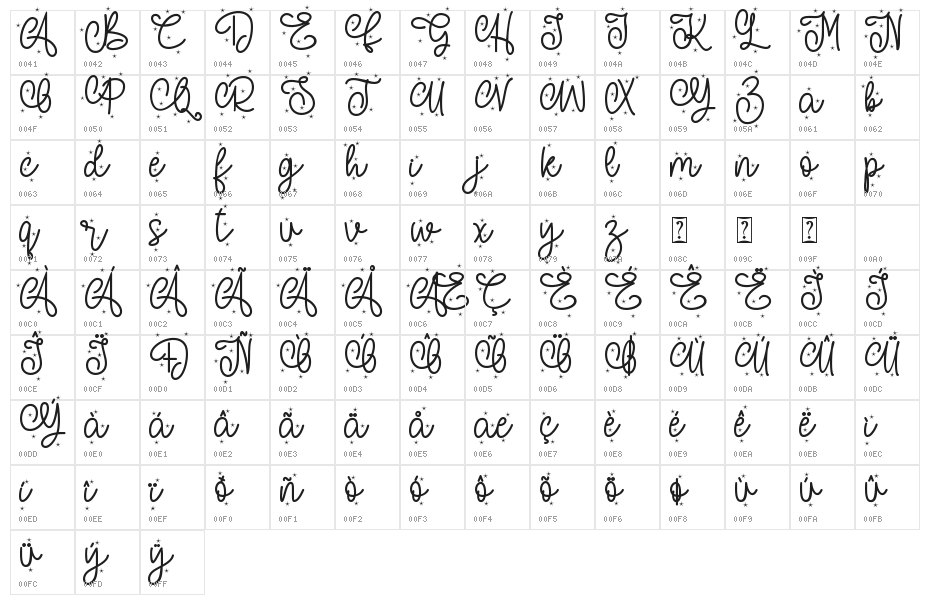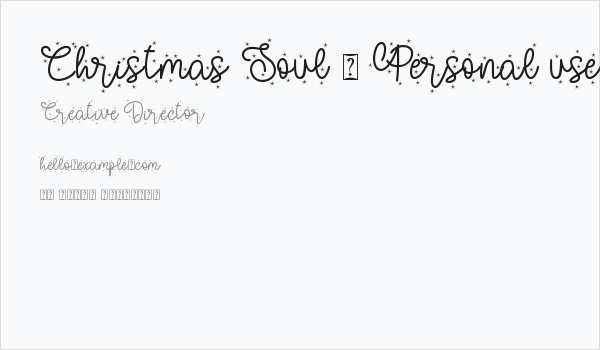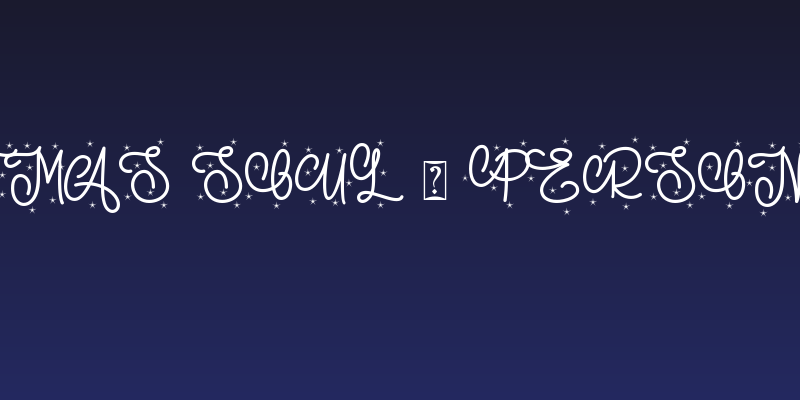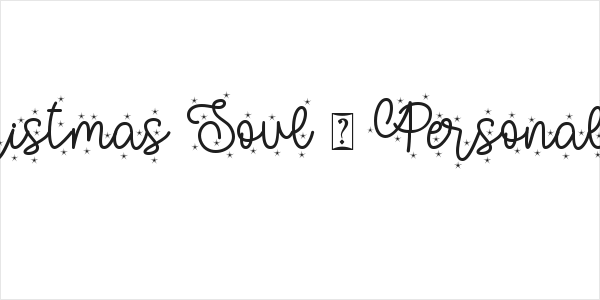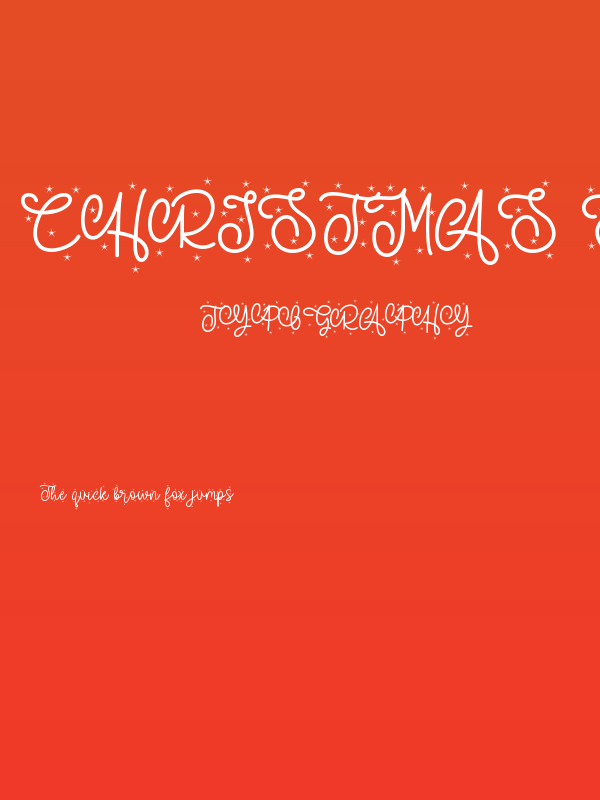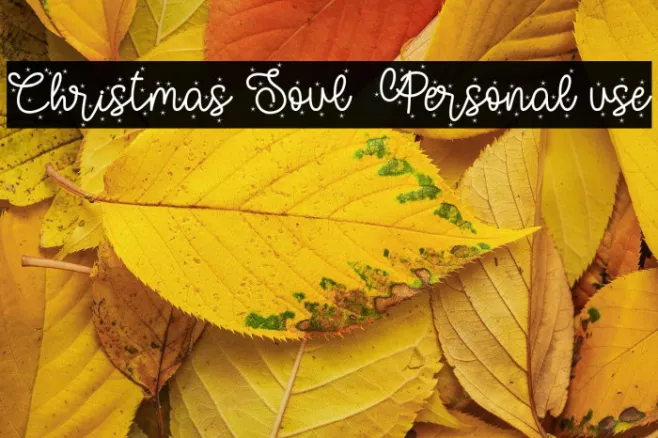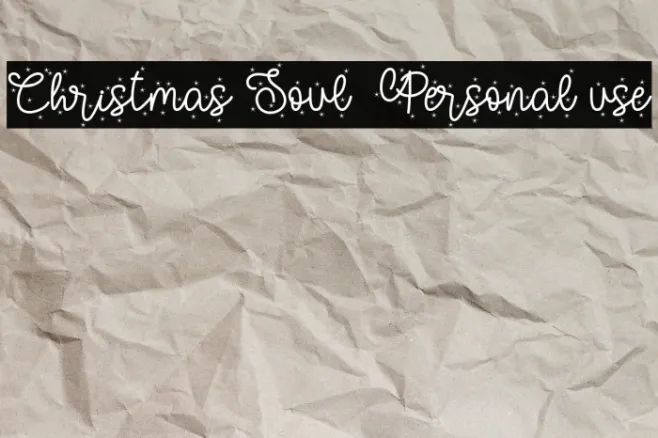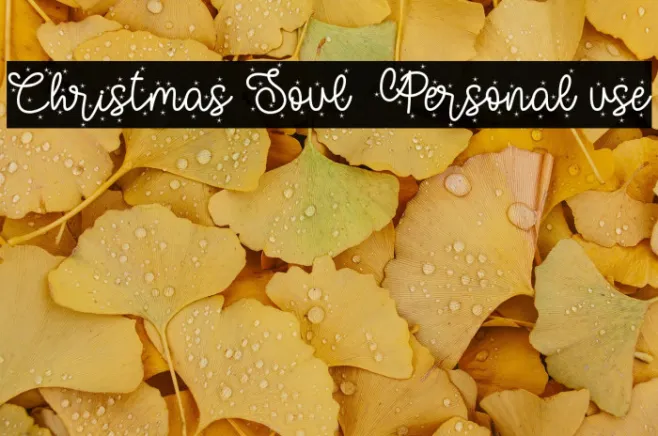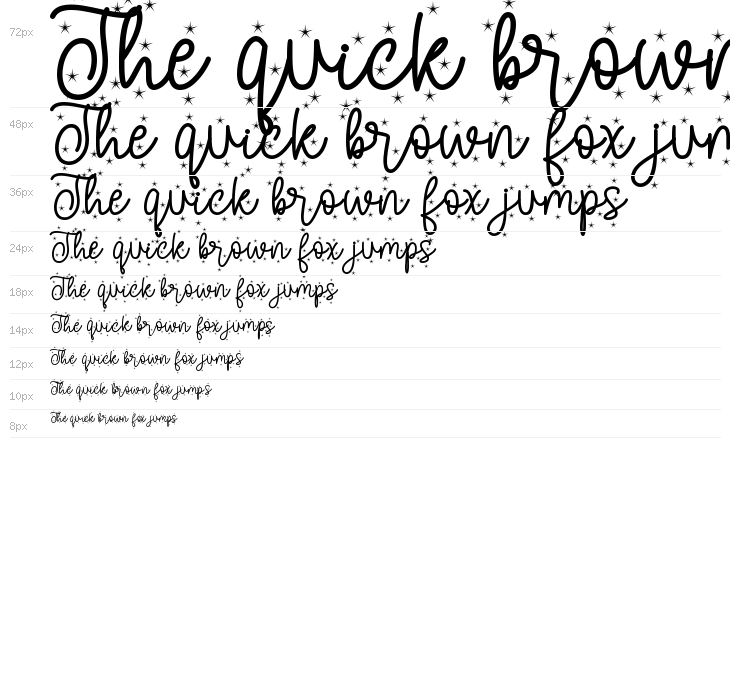
Christmas Soul - Personal use Font
Christmas Soul - Personal use Description
This whimsical and festive font features a playful, decorative style with star embellishments that evoke a sense of holiday cheer. The uppercase letters are adorned with swirling, curly accents, while the lowercase letters maintain a smooth, flowing script. The overall design is lively and energetic, making it perfect for capturing the joyful spirit of the season. The font combines elements of both script and decorative styles, with a medium contrast in stroke thickness that adds to its visual appeal. The character spacing is normal, allowing for easy readability despite its ornate details.
| Use Case | Headlines, Logos, Decorative text |
| Proposed Projects | Ideal for holiday cards, festive invitations, seasonal branding, and decorative posters. |